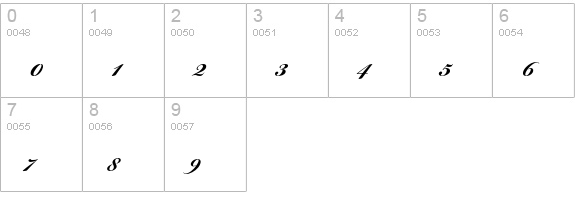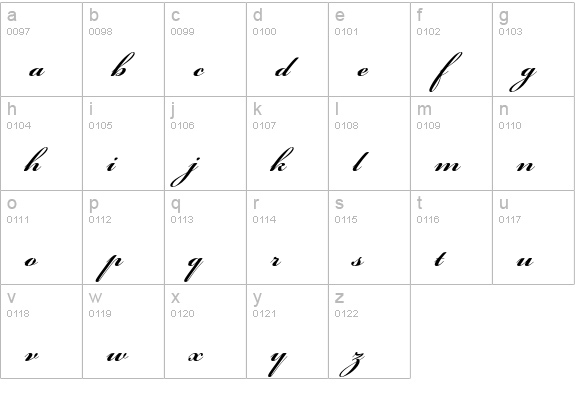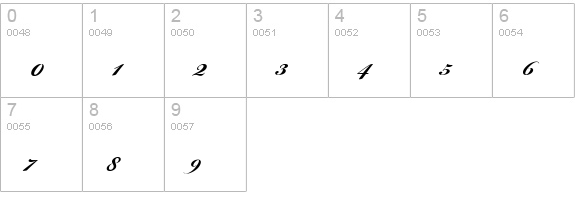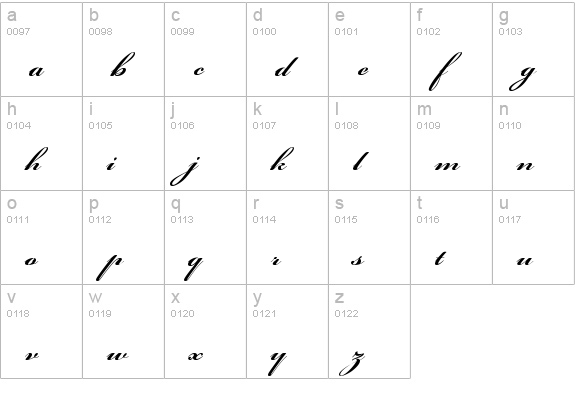
Bickham Script Pro Bold is a strong, high-contrast variant in the Bickham typeface family \xE2\x80\x94 well suited to headlines, attention-grabbing titles, and strong calls-to-action.
Bickham Script Pro Bold font is a beautifully crafted typeface that exudes elegance and sophistication. With its intricate details and graceful curves, this font is perfect for adding a touch of luxury to any project. The bold weight of Bickham Script Pro makes a statement while maintaining a sense of refinement. What's even better is that this stunning font is available for free download at FontsMarket.com. Whether you're working on invitations, branding materials, or any other design project, Bickham Script Pro Bold is sure to elevate your work to the next level. Don't miss out on this opportunity to enhance your designs with this exquisite typeface.